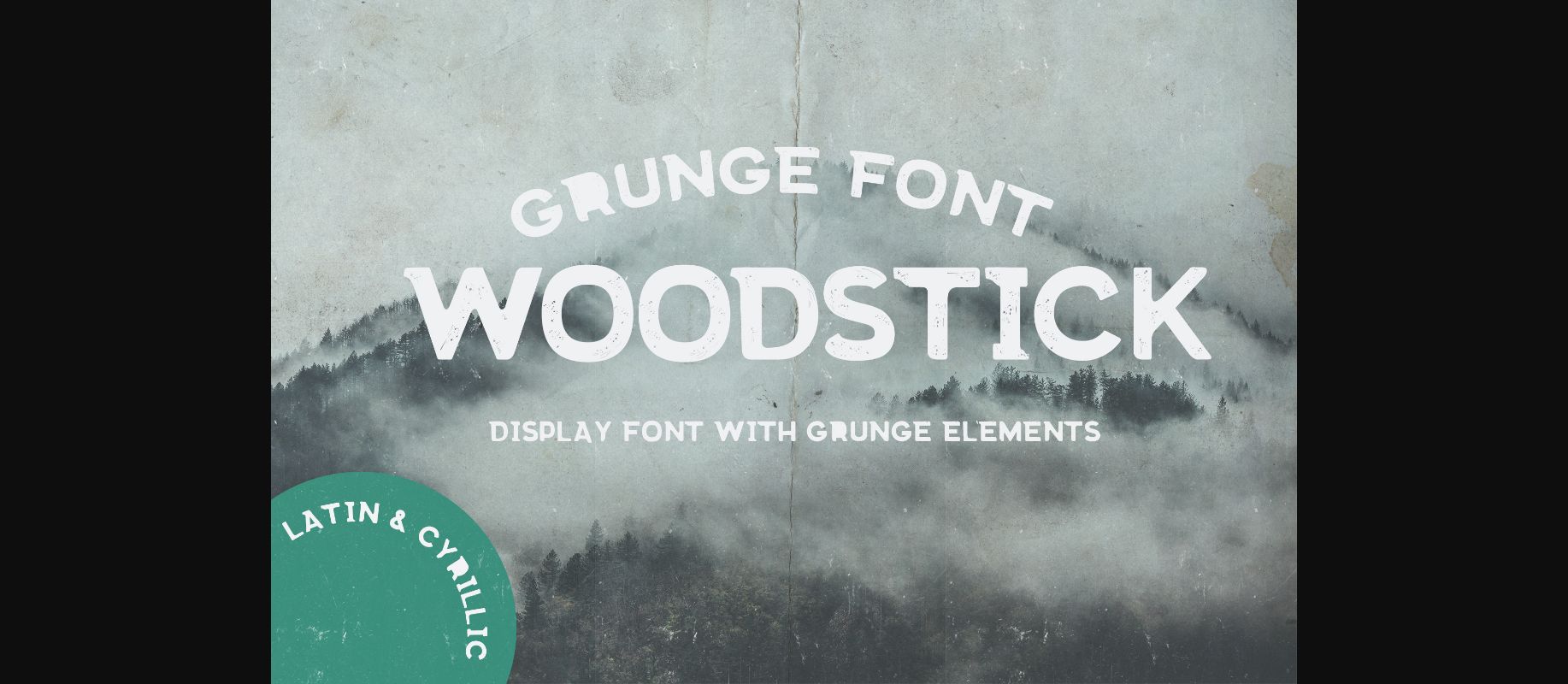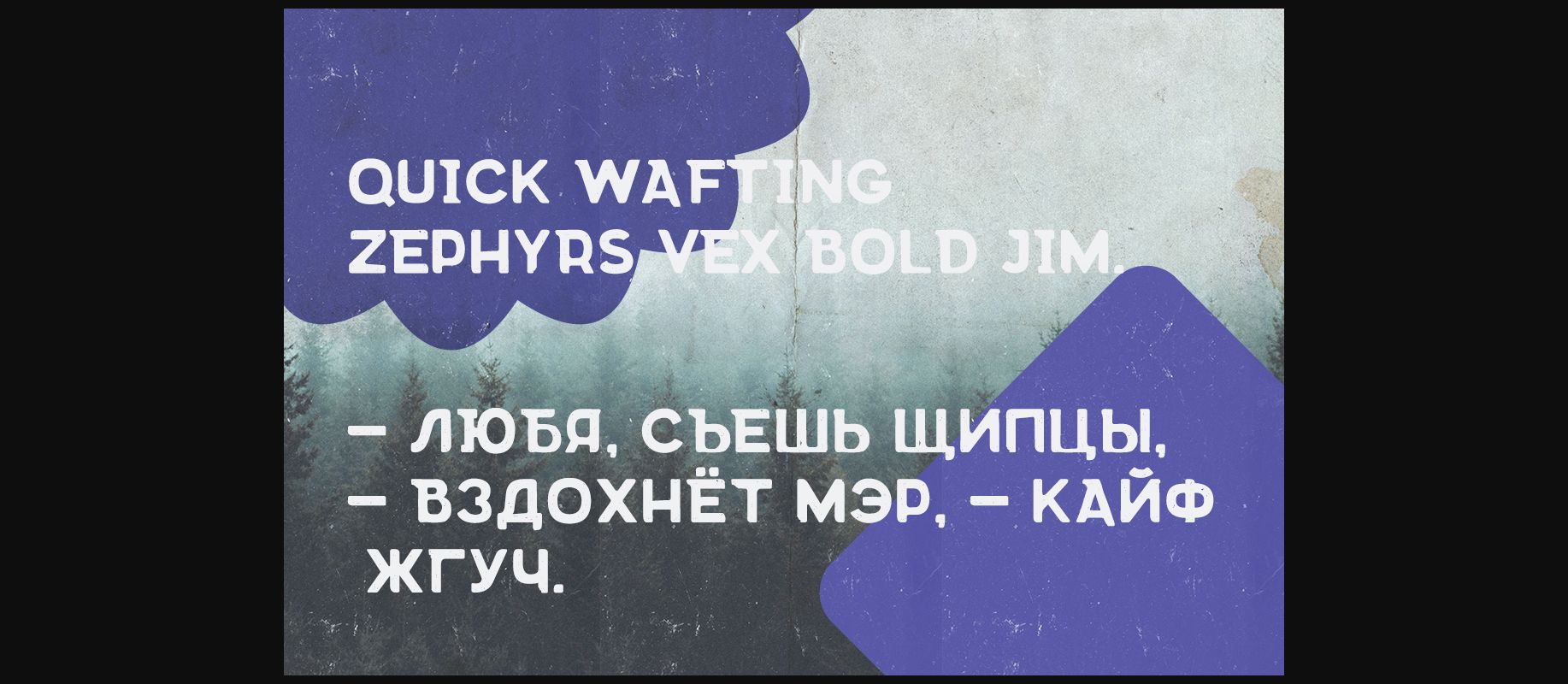
About Woodstick Font
Woodstick is a big & bold handmade font. It includes English & Cyrillic uppercase letters, numbers and punctuation. Perfectly match for branding, advertising, posters and more.